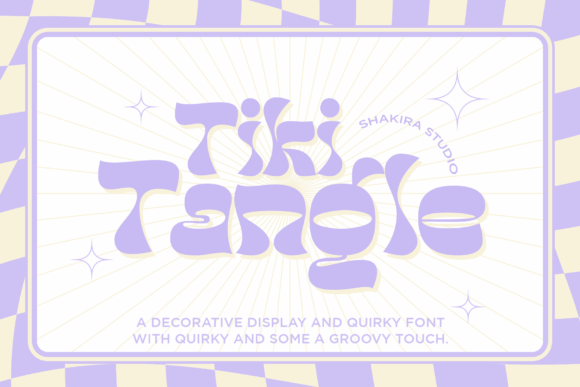
Introducing Tiki Tangle Font, the ultimate choice for designers seeking a retro touch and unparalleled uniqueness in their creations. Created by the talented Shakira Studio, this decorative font is the perfect blend of nostalgia and contemporary design trends.
With Tiki Tangle, you can effortlessly transport your audience to a bygone era, while infusing a fresh and modern twist into your projects. Each letter in this font is meticulously crafted, resulting in a stunning work of art that will captivate viewers and leave a lasting impression.
Unleash your creativity with Tiki Tangle, as it offers a plethora of possibilities for designers looking to stand out from the crowd. Whether you're working on flyers, posters, or any other graphic design project, this font will elevate your work to new heights.
Not only does Tiki Tangle exude a sense of playfulness and charm, but it also adds a touch of whimsy to your designs. Embracing an unconventional retro aesthetic, this font lets you create visually striking compositions that grab attention and evoke emotions.
Stand out from the competition with Tiki Tangle's unique and eye-catching appeal. Its versatility allows it to seamlessly complement a wide range of design styles, making it the go-to choice for professionals and enthusiasts alike.
Incorporate Tiki Tangle into your projects and watch as it breathes life into your ideas. Make a bold statement, evoke nostalgia, and leave your audience in awe with this exceptional font.